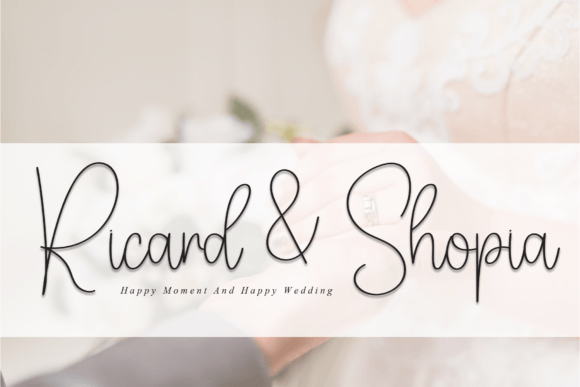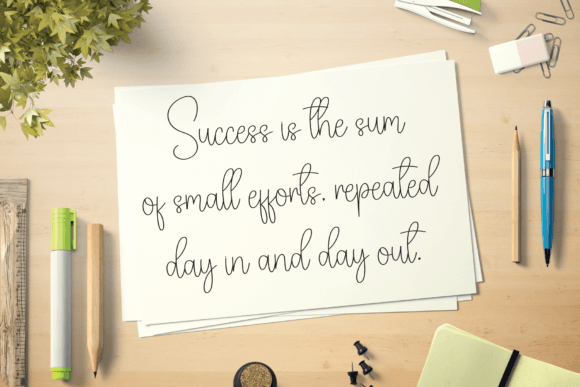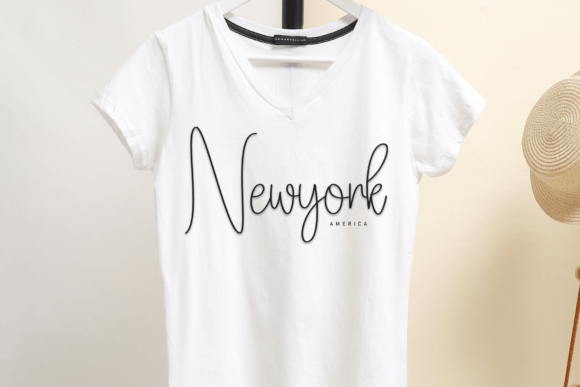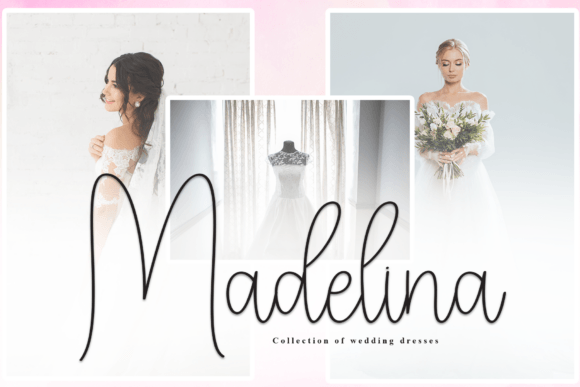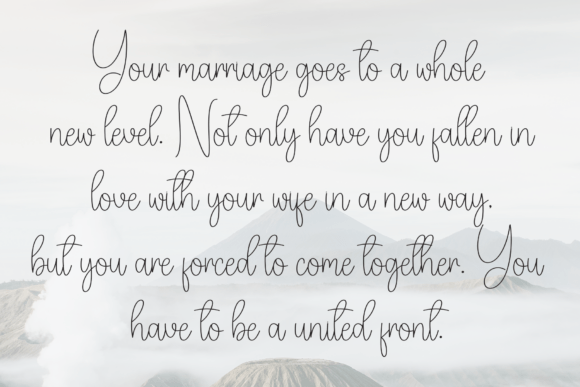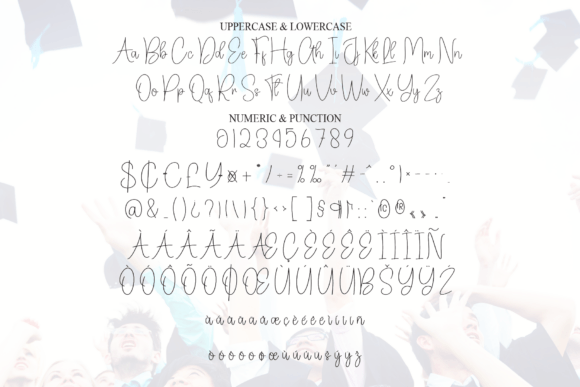
The Perfect Touch: Unlocking the Beauty of Graduation Font
As I sat at my desk, staring at a blank sheet of paper, I couldn’t help but feel a sense of excitement and nervousness. My sister’s graduation was just around the corner, and I was tasked with creating the perfect invitation. I wanted something elegant, something that would capture the essence of this special moment. That’s when I stumbled upon Graduation Font – a calligraphy font that would change the way I design forever.
Graduation Font is more than just a font – it’s a way to add a personal touch to any design. Its flowing, handwritten letters evoke a sense of sophistication and refinement, making it perfect for invitations, greeting cards, and special events. As a designer, I can appreciate the value of a well-chosen font, and Graduation Font is definitely a valuable addition to any design arsenal.
Graduation Font Key Features
- Unique Characteristics: The Graduation Font features a unique, celebratory design with a mix of uppercase and lowercase letters, making it perfect for graduation invitations, certificates, and other special occasion documents.
- Script and Ornamentation: The font includes a range of script and ornamentation options, including swashes, flourishes, and decorative elements, to add an extra touch of elegance and sophistication.
Graduation Font Review
First off, I want to say that I appreciate the effort put into designing the Graduation Font. It’s a bold, playful script that screams “celebration”! ✨ The rounded edges and flowing lines give it a fun, youthful vibe that’s perfect for graduations, promotions, or any other milestone occasion. ✨ The font’s consistency is also a plus, making it easy to read and understand, even at larger font sizes. ✨
However, there are a few limitations that prevent me from giving it a perfect score. ⚠️ For one, the font can feel a bit overbearing at smaller sizes, which might make it difficult to use for body text or smaller headings. ⚠️ Additionally, the font’s playfulness can sometimes come across as too childish, which might not be suitable for more formal events or designs. ⚠️
Overall, I think the Graduation Font is a great choice for celebrations and milestone occasions. While it has its limitations, its unique personality and consistency make it a solid option for designers looking to add some flair to their projects.
Pros and Cons:
- ✨ Bold, playful script that’s perfect for celebrations
- ✨ Consistent and easy to read, even at larger font sizes
- ✨ Rounded edges and flowing lines give it a fun, youthful vibe
- ⚠️ Can feel overbearing at smaller sizes
- ⚠️ Might come across as too childish for formal events or designs
The “Graduation Font” is ideal for creating celebratory designs, such as graduation invitations, certificates, and party decorations.
Use it in combination with bright colors and creative graphics to make your designs stand out.
Alternatives to Graduation Font
Cream Soda is a script font that resembles the informal, handwritten feel of Graduation Font. However, it has a more elegant and refined appearance. Use it for titles, headings, and other decorative text where a more sophisticated look is desired. Cream Soda is a better choice when a more polished and refined aesthetic is needed.